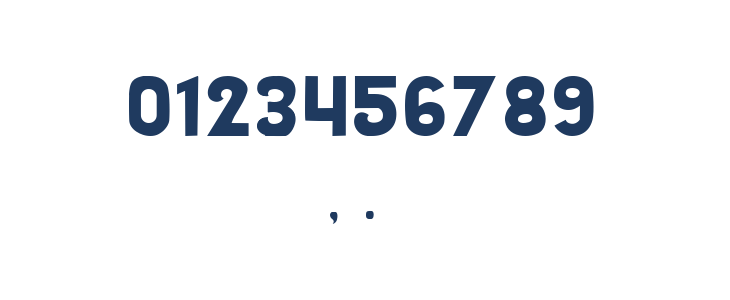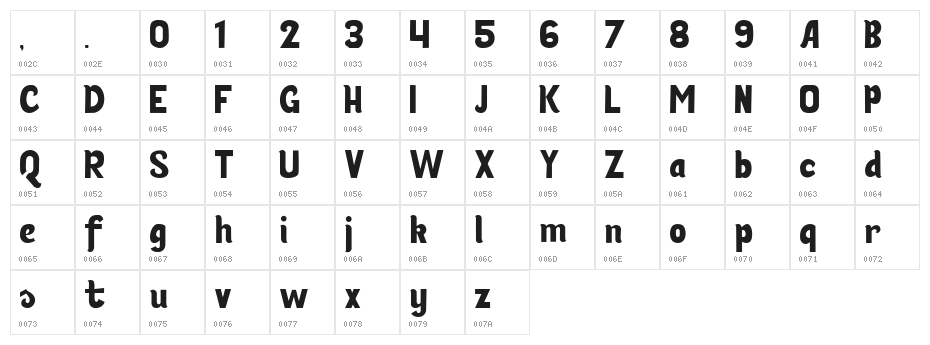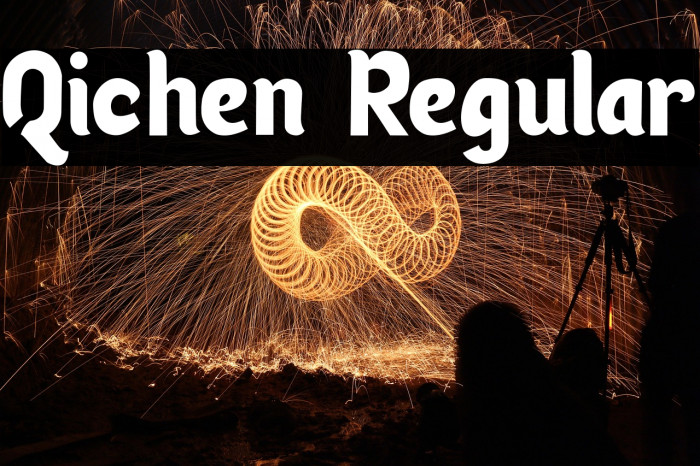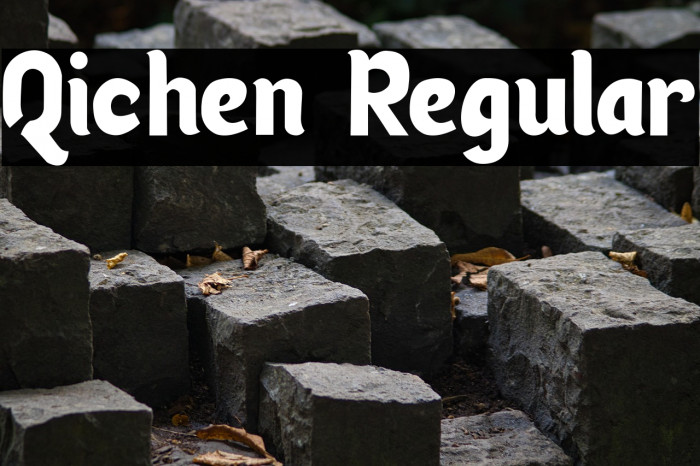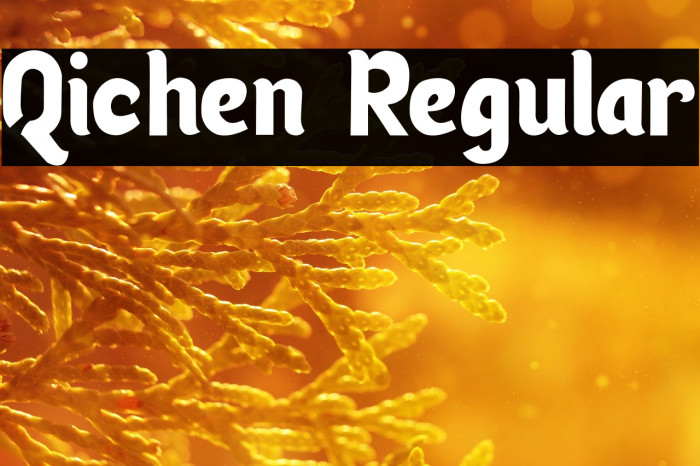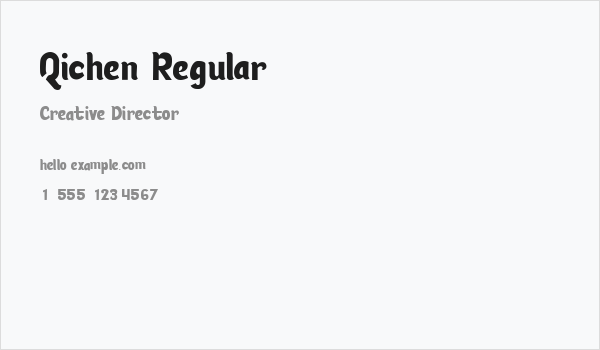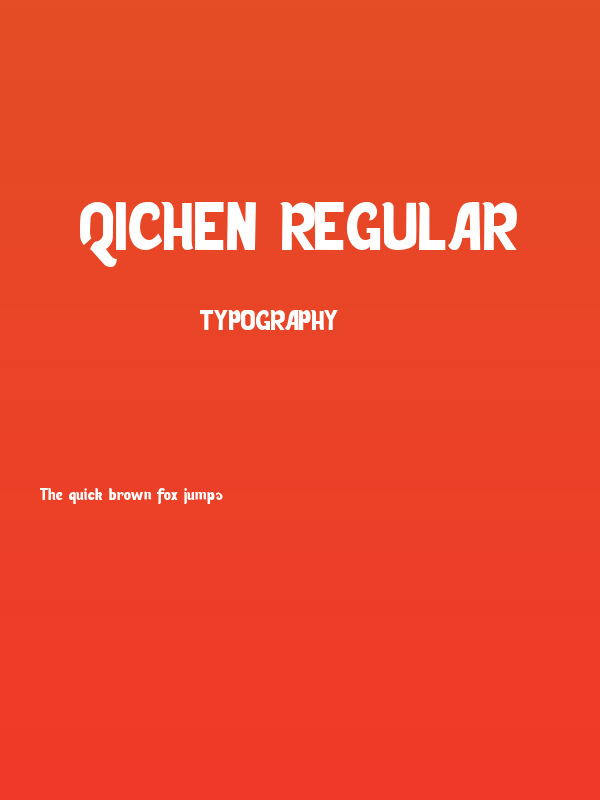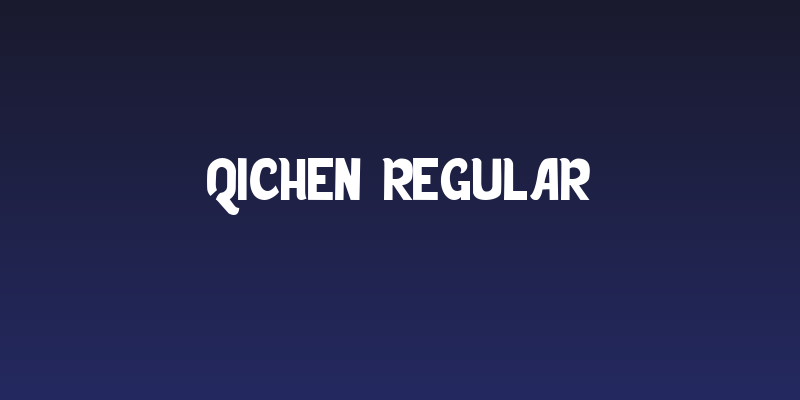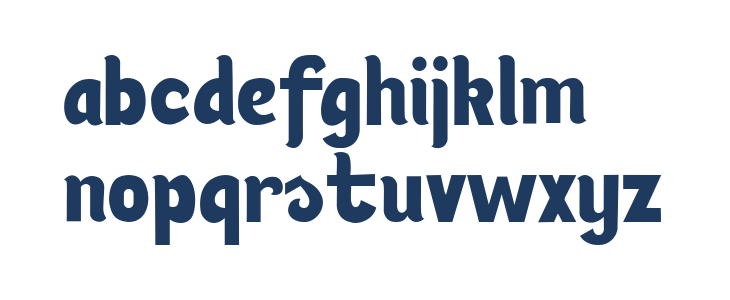
Qichen Regular Font
Qichen Regular Description
This font features a bold and playful design with a unique blend of curves and angles, giving it a distinctive and eye-catching appearance. The uppercase letters are robust and slightly condensed, while the lowercase letters maintain a whimsical flair with rounded edges and occasional flourishes. The numerals are consistent with the overall style, providing a cohesive look. The font's character set includes basic punctuation, enhancing its versatility. Its boldness and decorative elements make it suitable for projects that require a strong visual impact.
| Proposed Projects | Ideal for branding, poster design, children's books, and any project needing a playful yet bold typeface. |